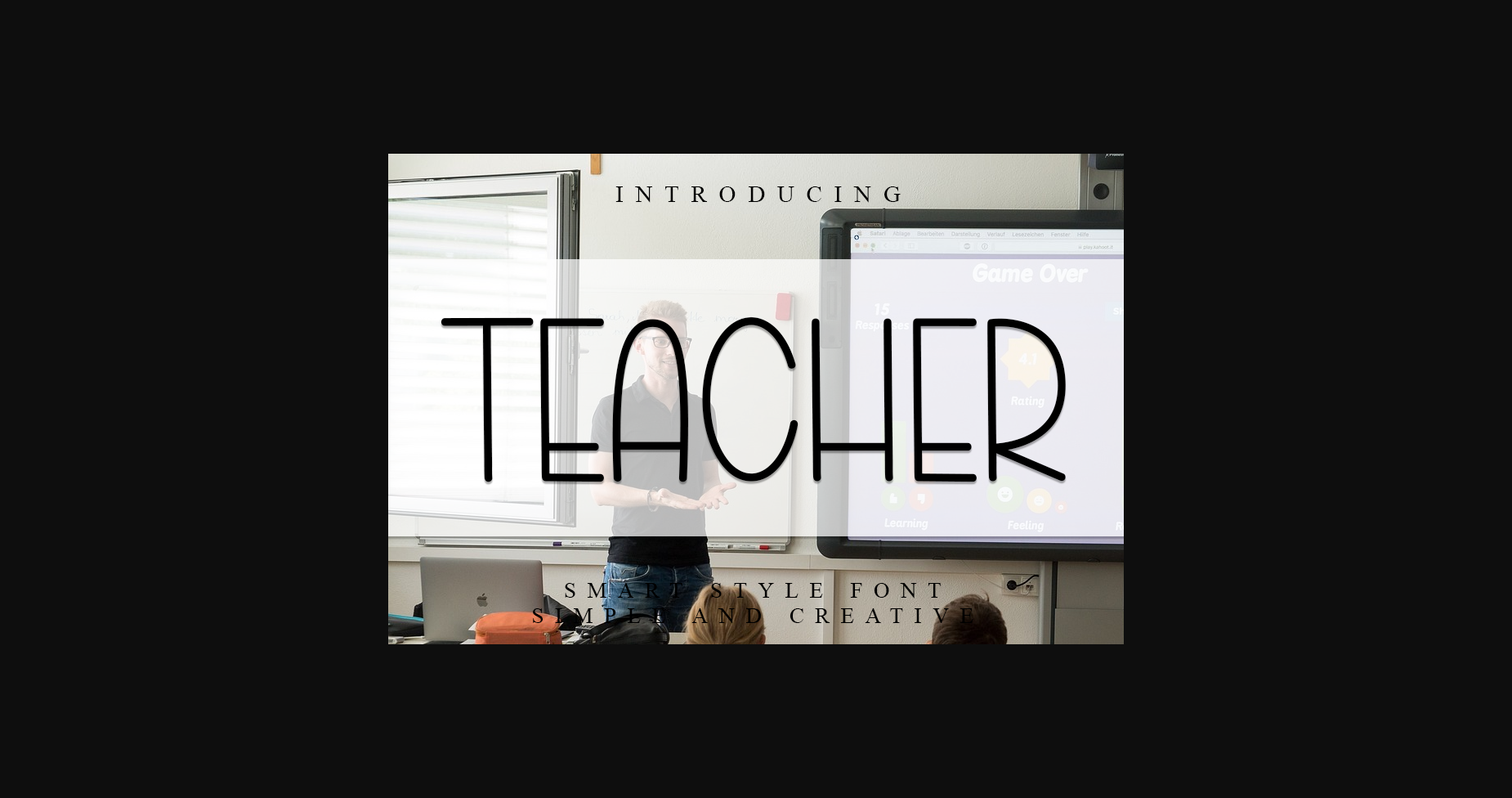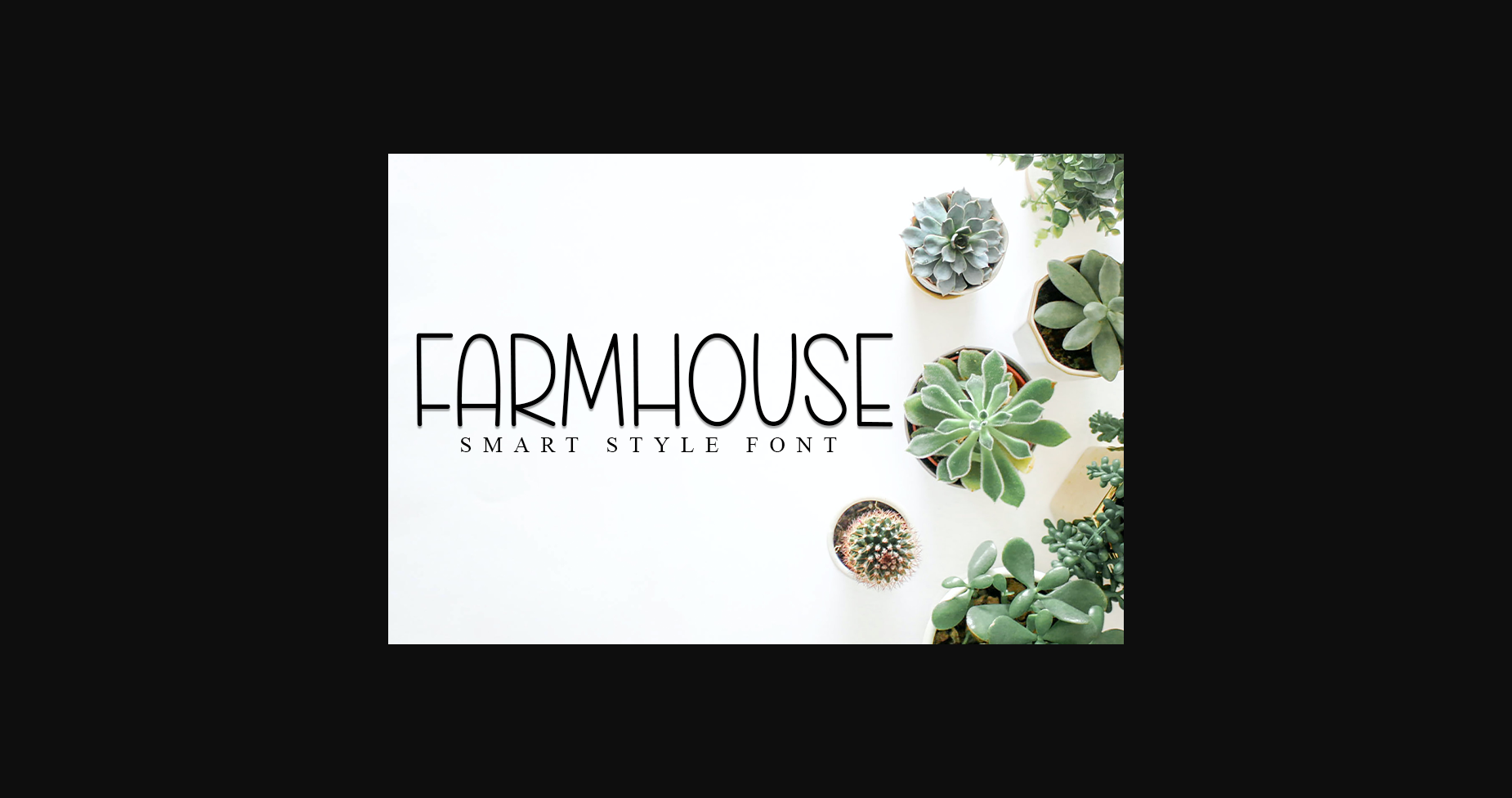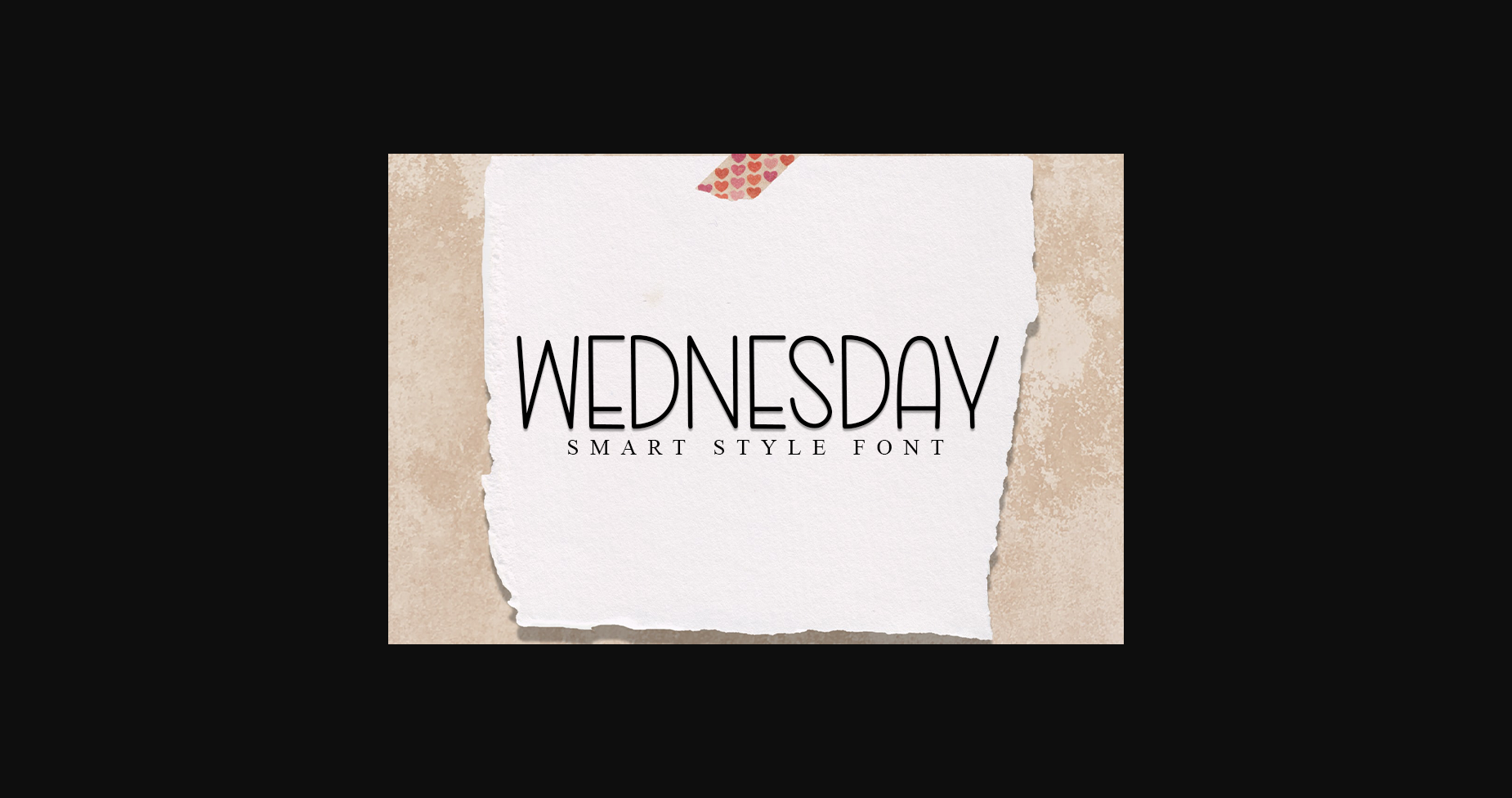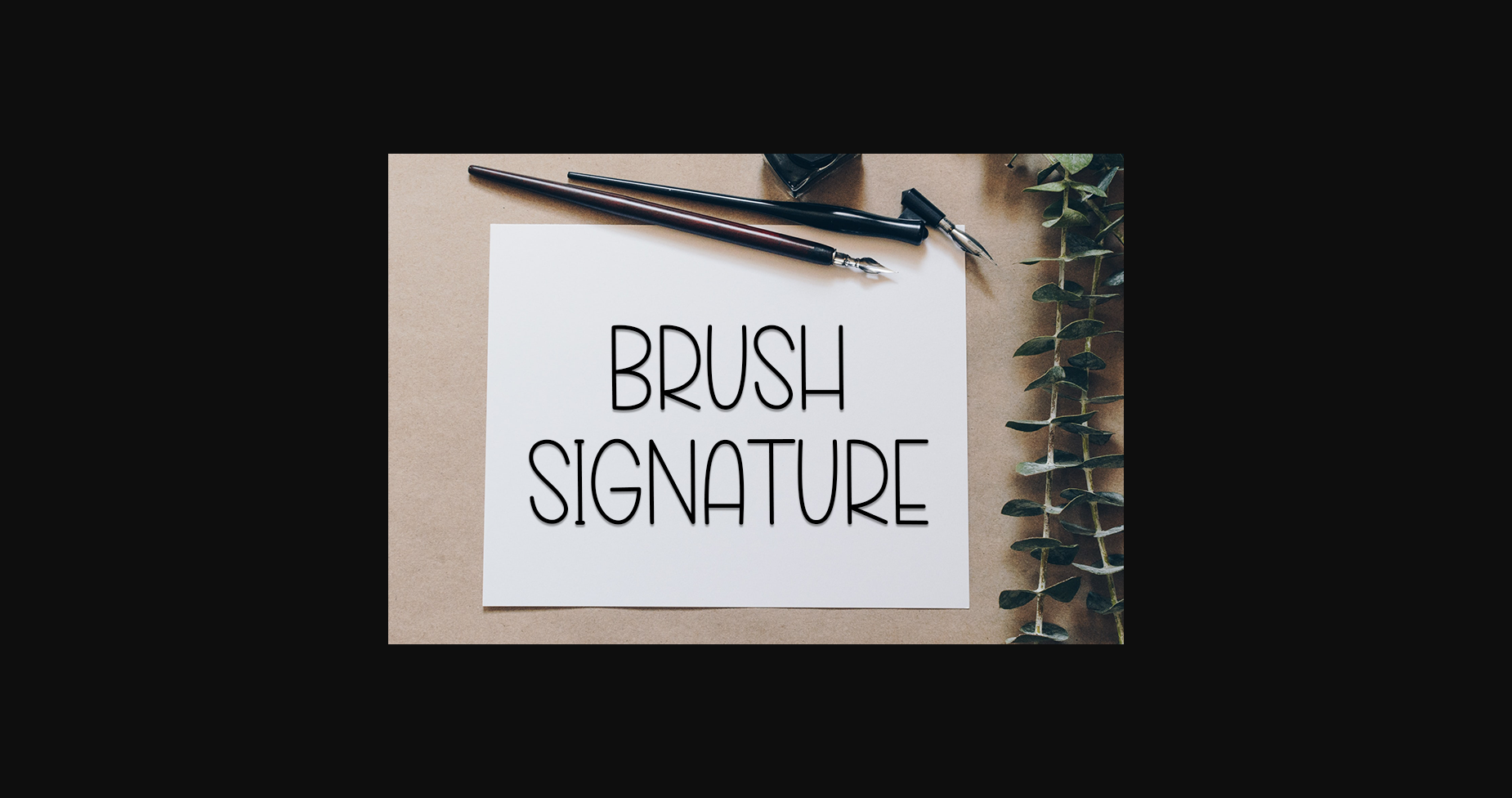
About Teacher Font
Teacher is a cool and modern sans serif font. Whether you’re using it for crafts, digital design, presentations, or creating greeting cards, this font has the potential to become your go-to font, whatever the occasion.